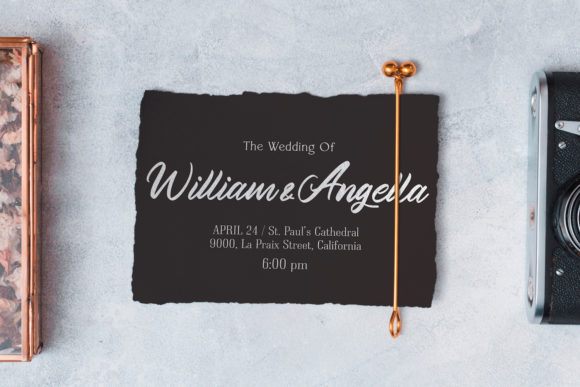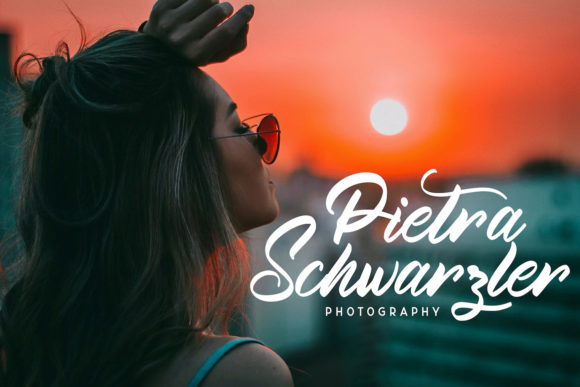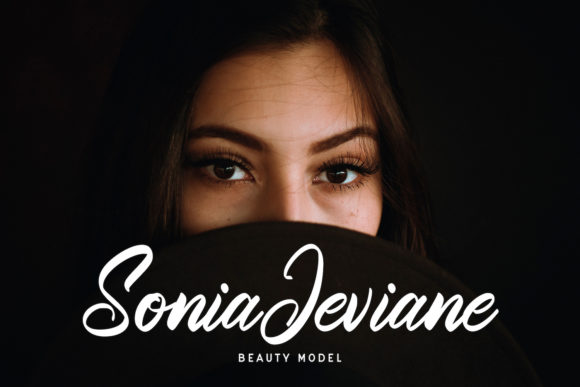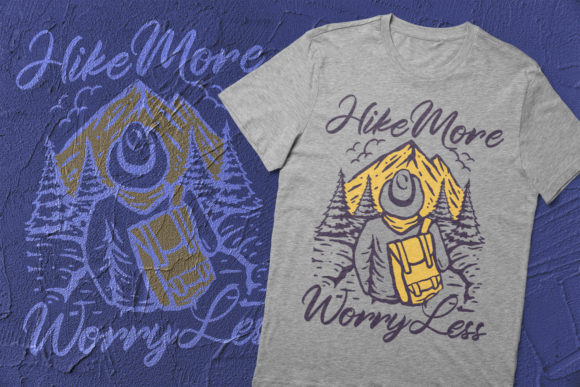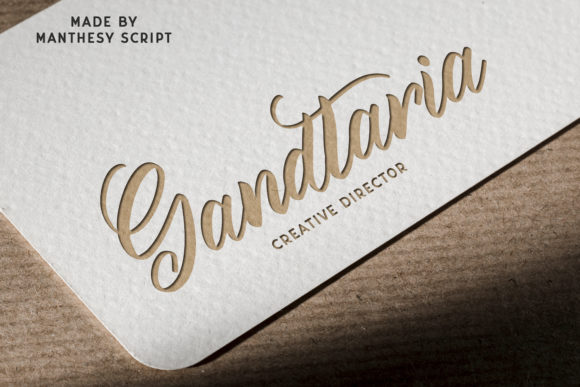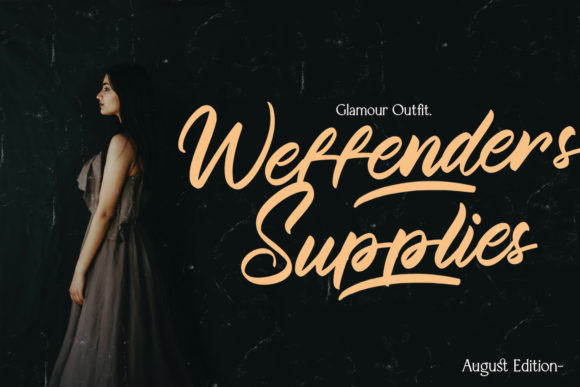
Introduction to Manthesy Font
Have you ever been working on a creative project and you just can’t seem to find the right font to match your vision? I know I have! It’s like searching for a needle in a haystack, until one day, you stumble upon the perfect design resource that makes all the difference. For me, that perfect find was the Manthesy Font – a beautiful, flowing handwritten font that’s sure to elevate any design to the next level.
With its unique and elegant style, created with the help of a brush pen, the Manthesy Font is a high-quality design resource that’s perfect for any creative project. Whether you’re working on a blog post, a social media graphic, or even a branding project, this font is sure to add a touch of sophistication and class. And the best part? It’s available for free download, making it an accessible design resource for designers of all levels.
Key Features of Manthesy Font
- Unique, hand-drawn style with a transparent background, allowing for versatility in design
- Includes a range of characters, including uppercase and lowercase letters, numbers, and symbols
- Perfect for use in digital design, including web design, graphic design, and more
Honest Review: Manthesy Font
As a designer, I’m always on the lookout for high-quality fonts to elevate my creative projects. I recently stumbled upon the Manthesy Font, and I’m excited to share my thoughts on it.
What works well: ✨ The Manthesy Font is a beautiful, elegant script font that’s perfect for design projects that require a touch of sophistication. The font is highly customizable, and it looks stunning in both print and digital formats. I particularly love how it pairs well with transparent backgrounds, adding an extra layer of depth to my designs.
What doesn’t work well: ⚠️ While the Manthesy Font is a great addition to any design resource library, I did encounter some issues with font size and spacing. In certain situations, the font can appear a bit too condensed or too loose, which can affect readability. However, this issue can be easily resolved with some fine-tuning.
Overall impression: The Manthesy Font is a solid choice for designers seeking a high-quality, elegant script font. While it may have some limitations, its benefits far outweigh its drawbacks. I highly recommend adding it to your design resource library.
- Beautiful, elegant script font
- Perfect for design projects requiring sophistication
Tips for Getting the Most Out of Manthesy Font
To get the most out of the Manthesy Font, use it in combination with other design resources, such as high-quality images and graphics. Experiment with different font sizes and colors to create a unique look.
The Manthesy Font is perfect for a variety of creative projects, including branding, marketing materials, and editorial design. Its high-quality design and transparent background make it a versatile design resource that’s sure to impress.
Is the Manthesy Font suitable for high-quality design projects?
Yes, the Manthesy Font is designed to be a high-quality font, making it suitable for a wide range of design projects. The font features a unique and elegant design that can add a touch of sophistication to your creative project. Whether you’re working on a brochure, business card, or website, the Manthesy Font is a great choice for designers who want a high-quality design resource.